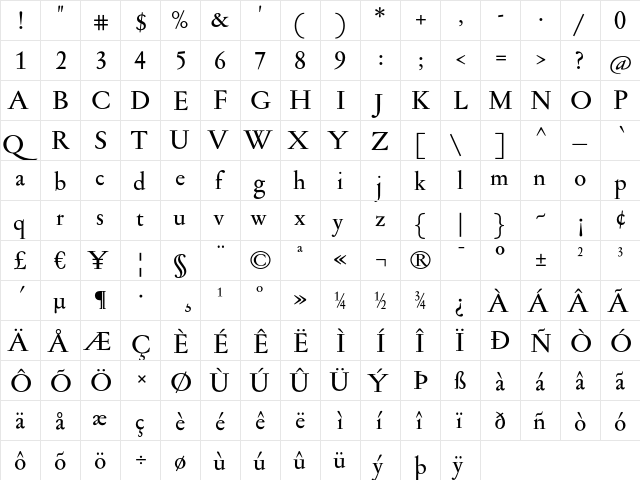
Jannon Med Regular
| Foundry | Frantisek Storm, stormtype.com |
Design Context for Jannon Med Typeface
Jannon Med offers clean, dependable letterforms without strong stylistic allegiance, making it a practical choice for designers who need flexibility.